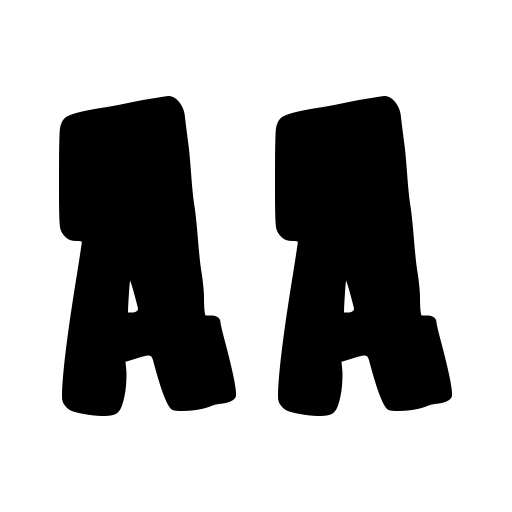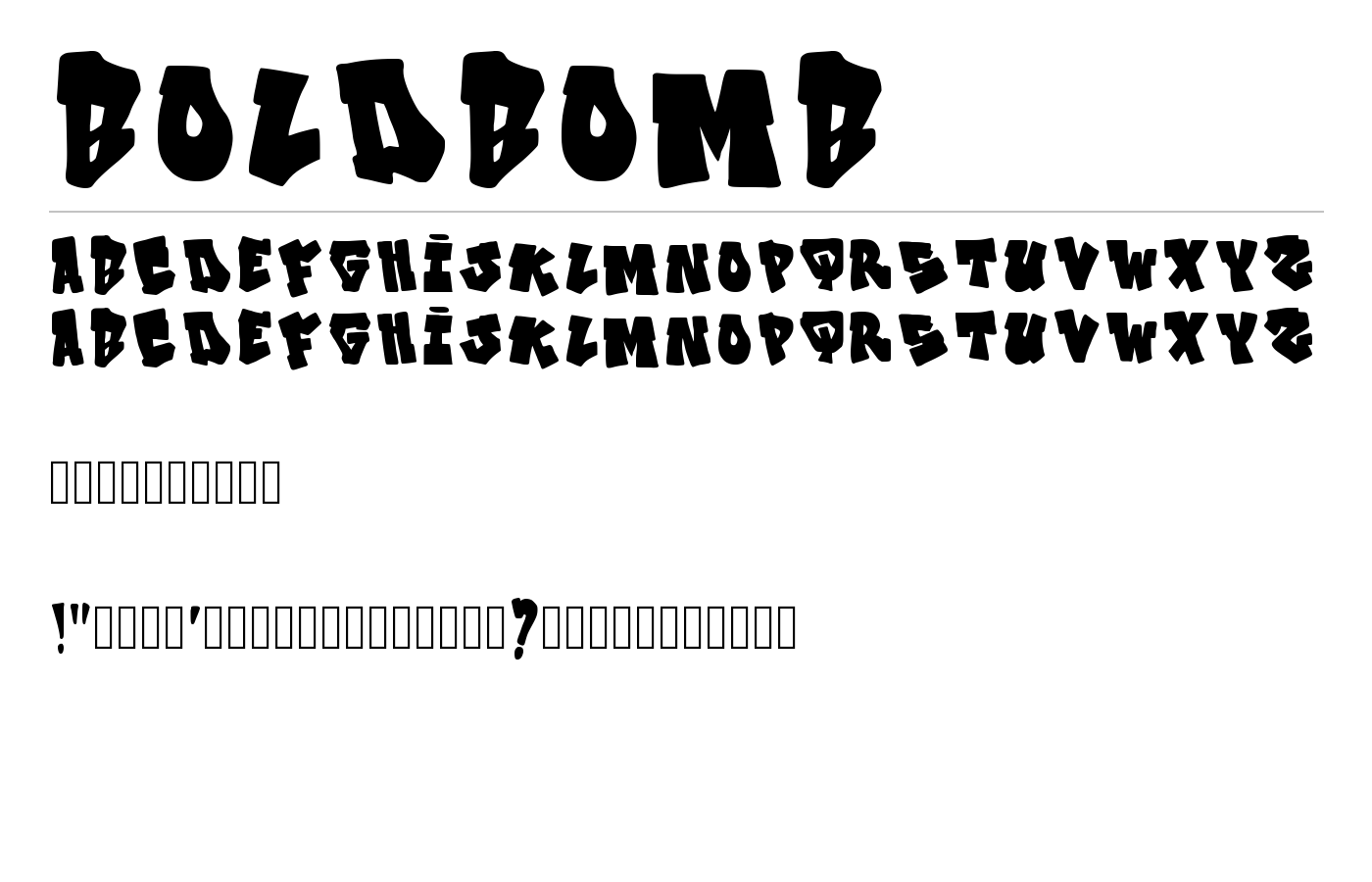
Boldbomb is a bold, playful display font with chunky, irregular letterforms that give it an energetic, hand-drawn feel. Its heavy weight and quirky shapes make it perfect for eye-catching headlines, posters, and branding that wants to convey a fun, dynamic, and adventurous personality. This font works best in creative projects where impact and uniqueness are key.
Boldbomb Font